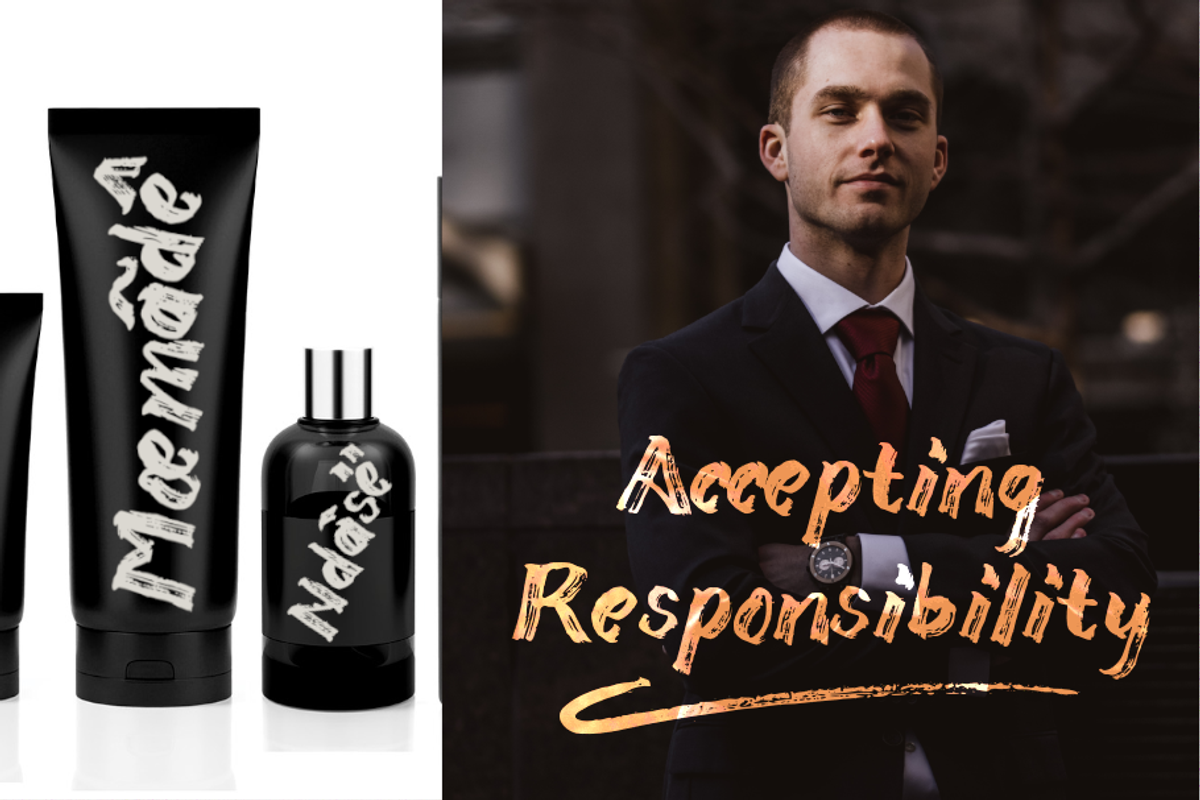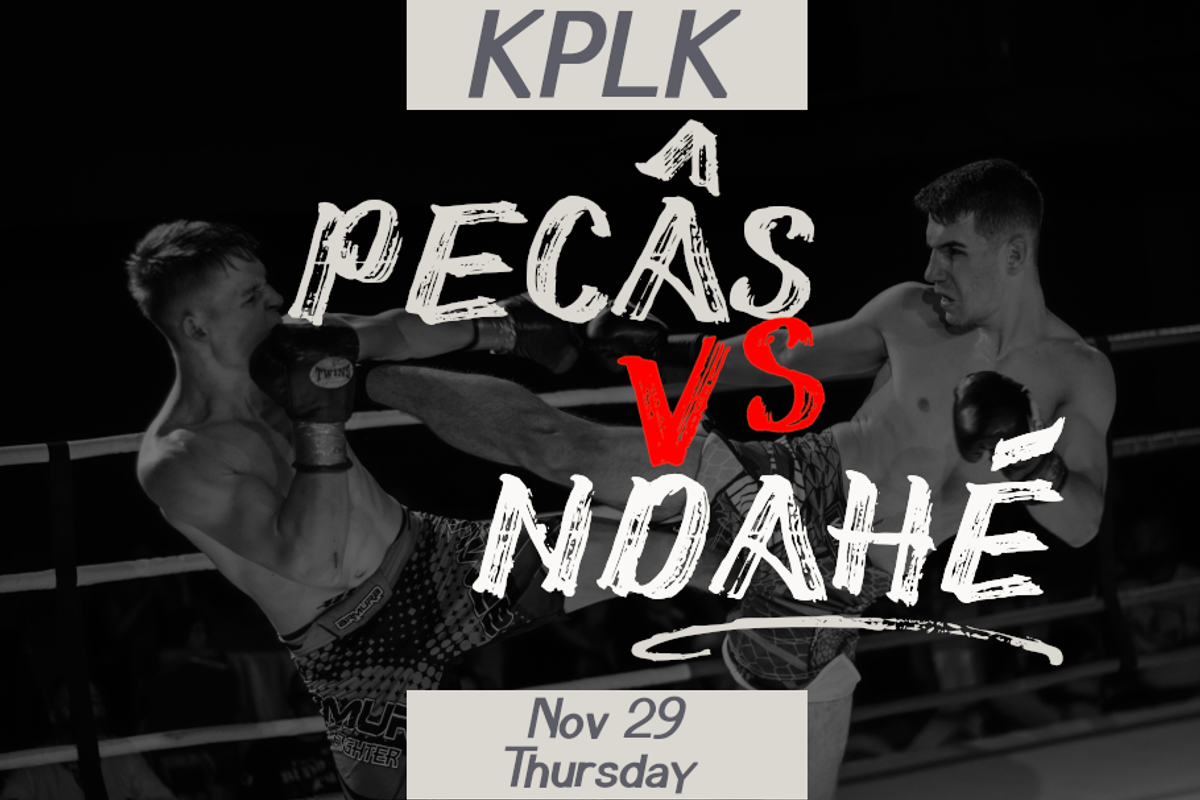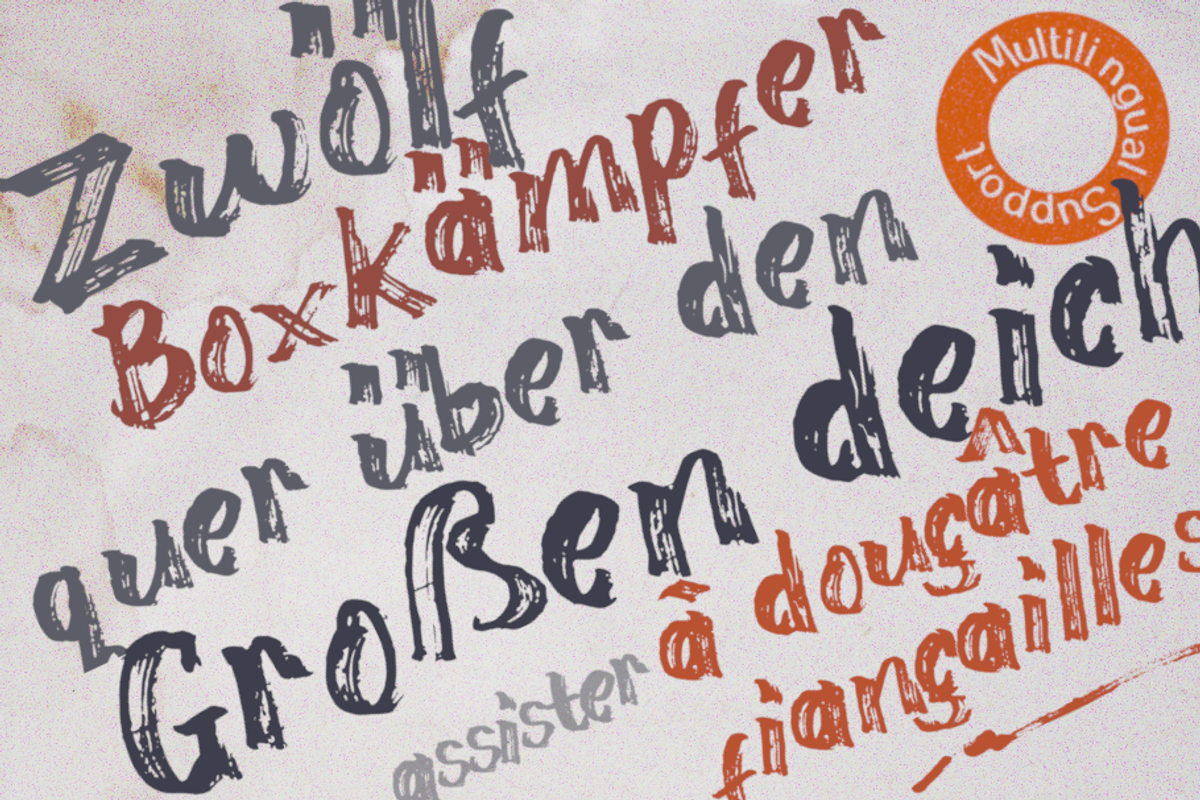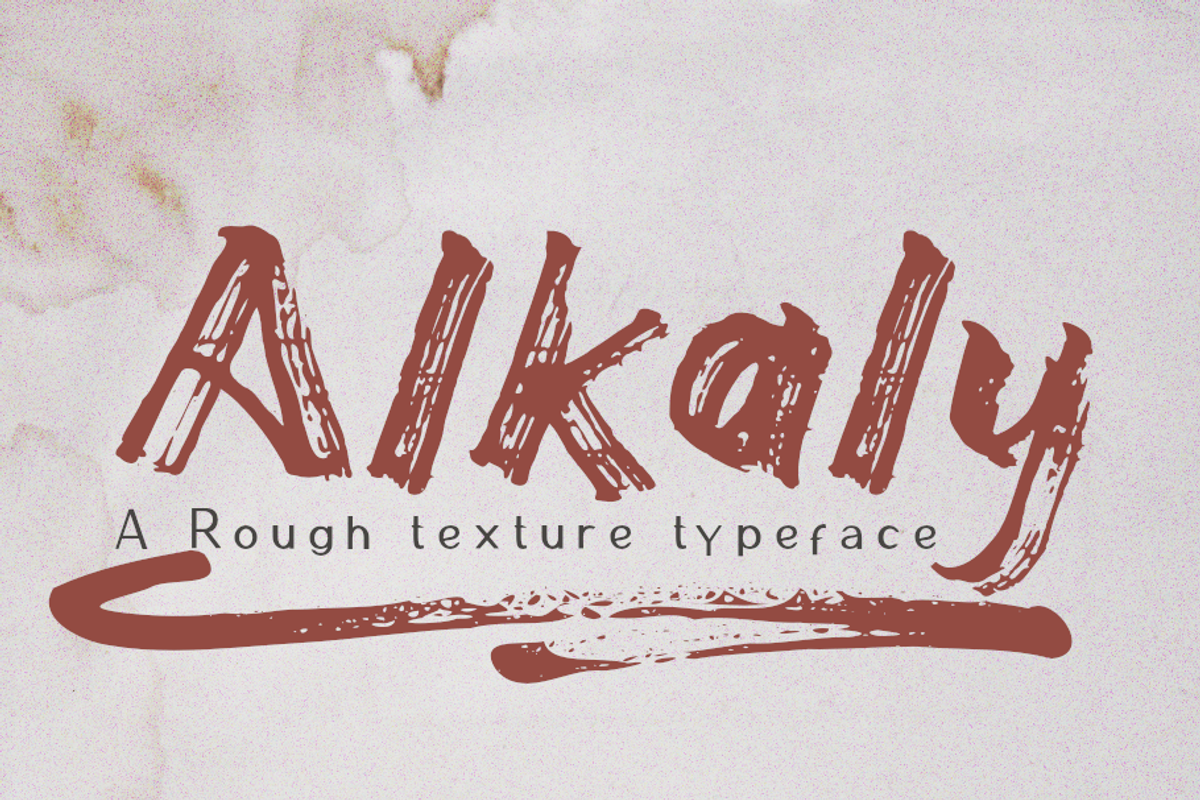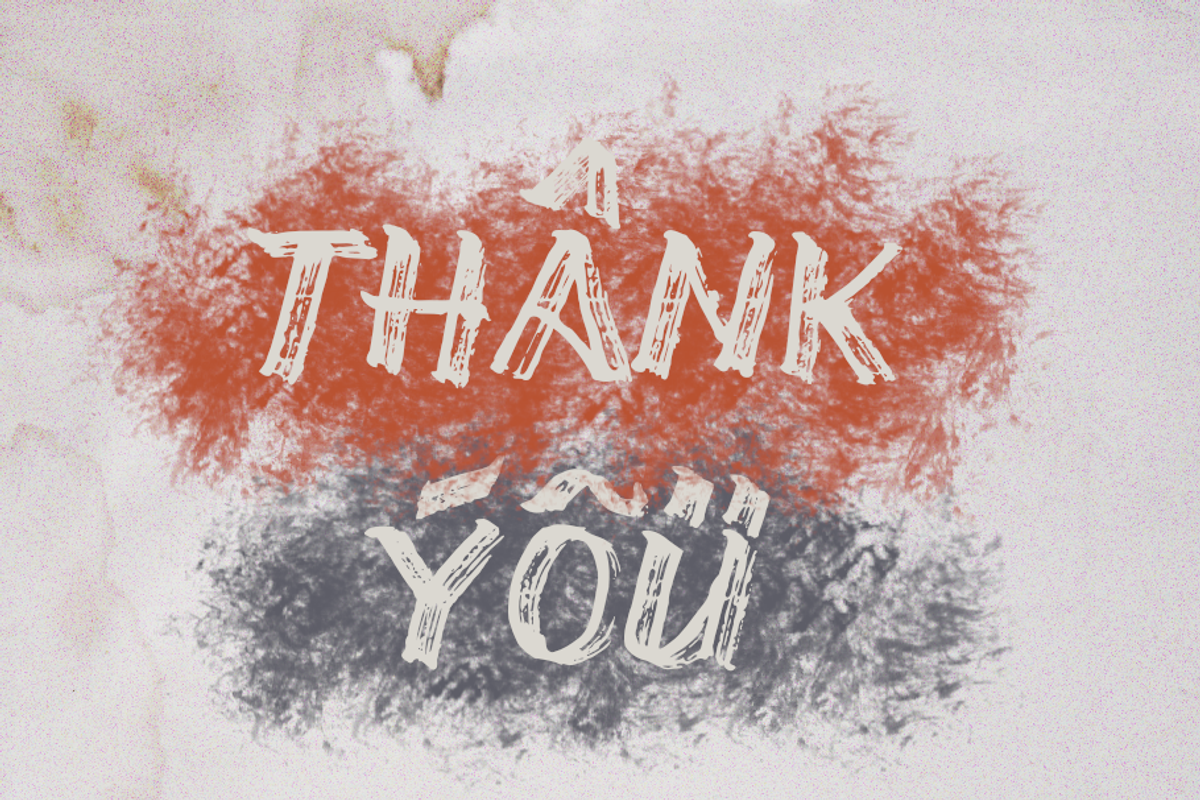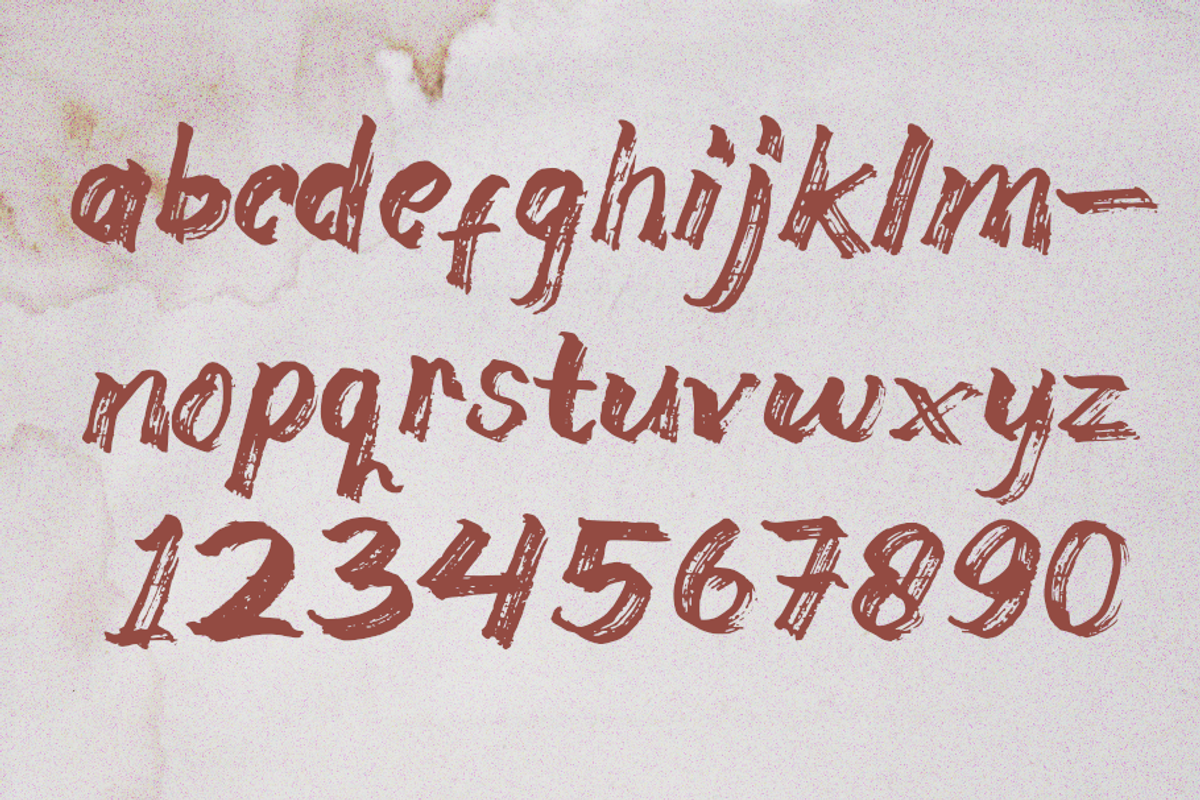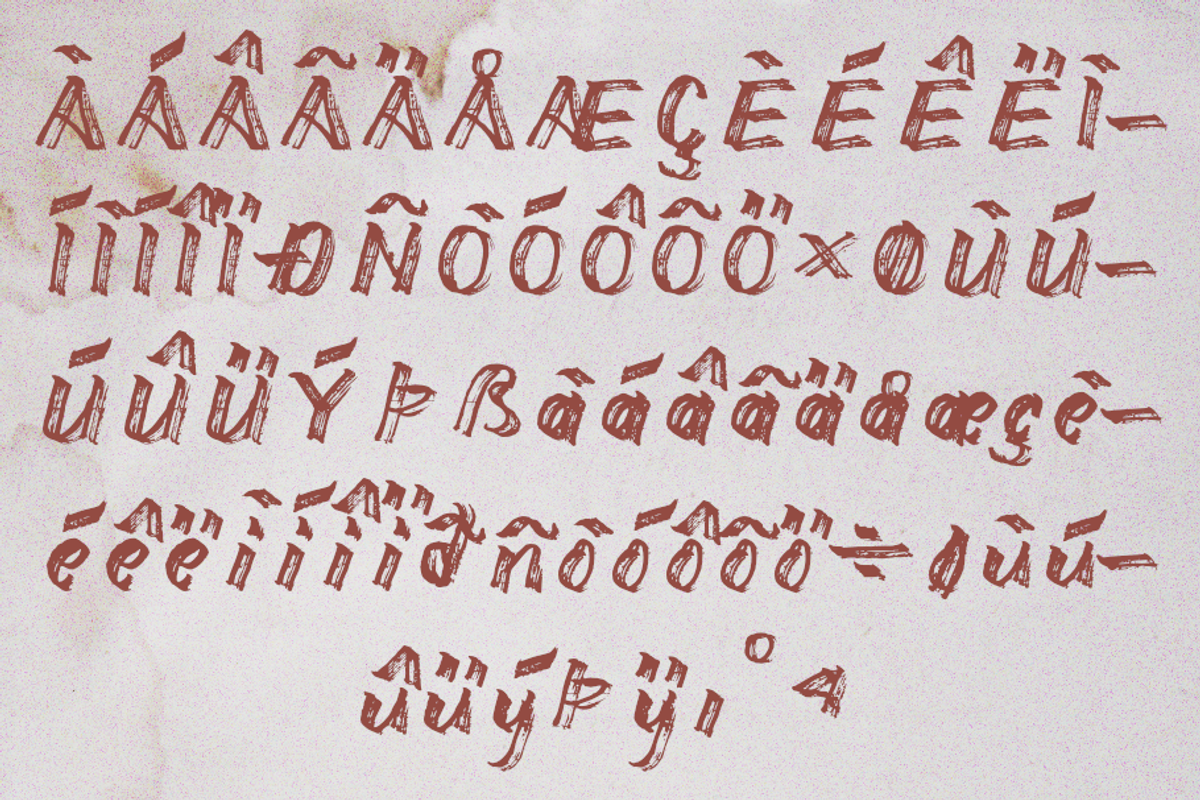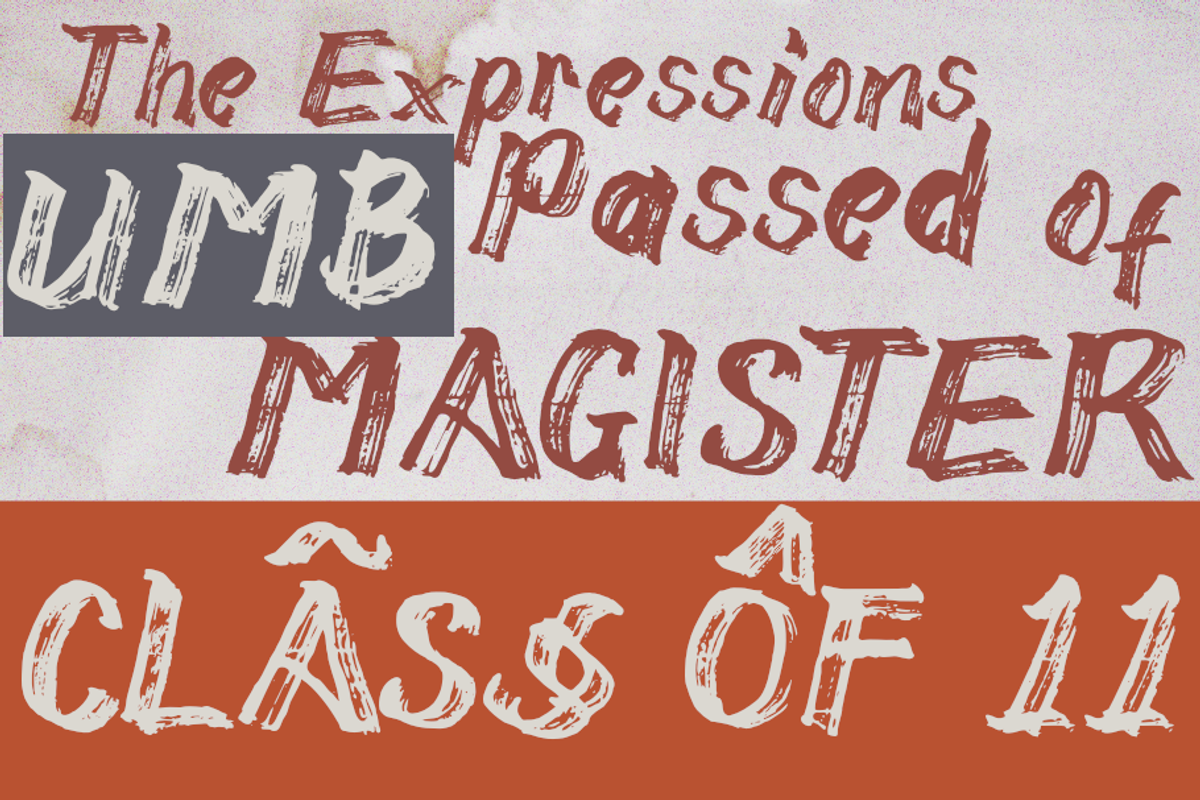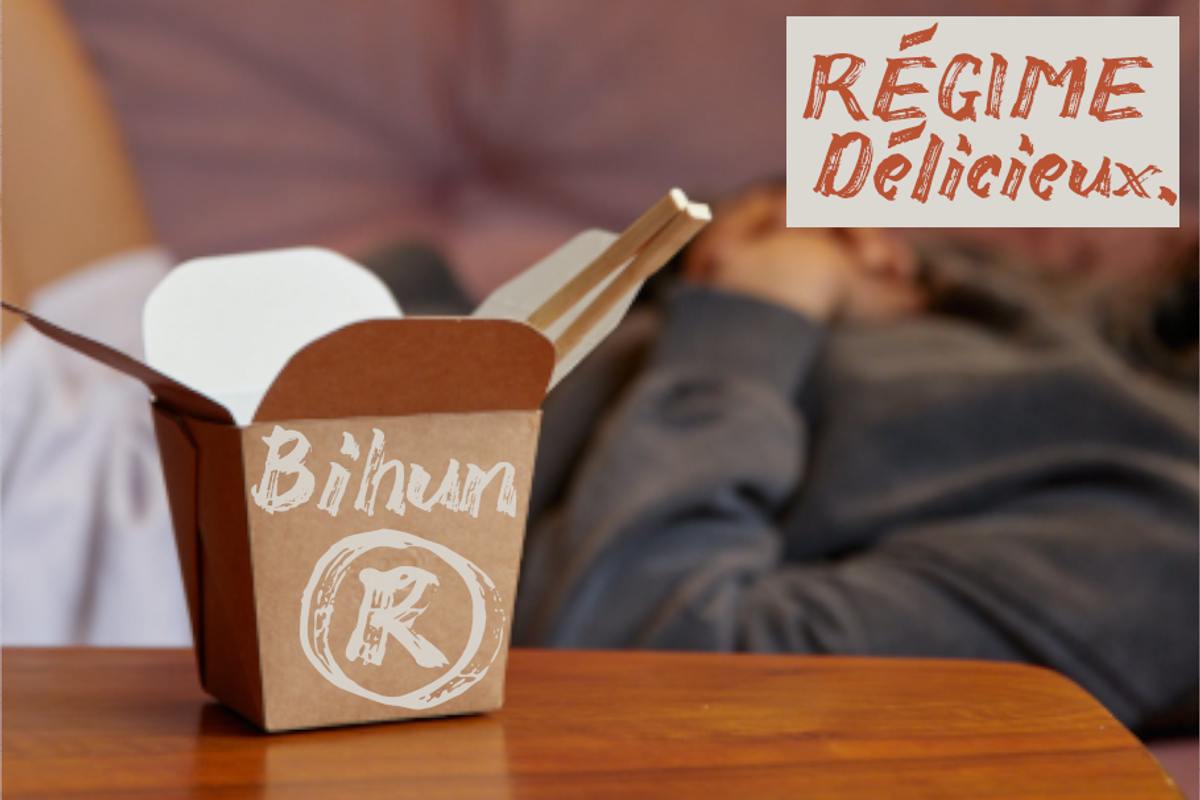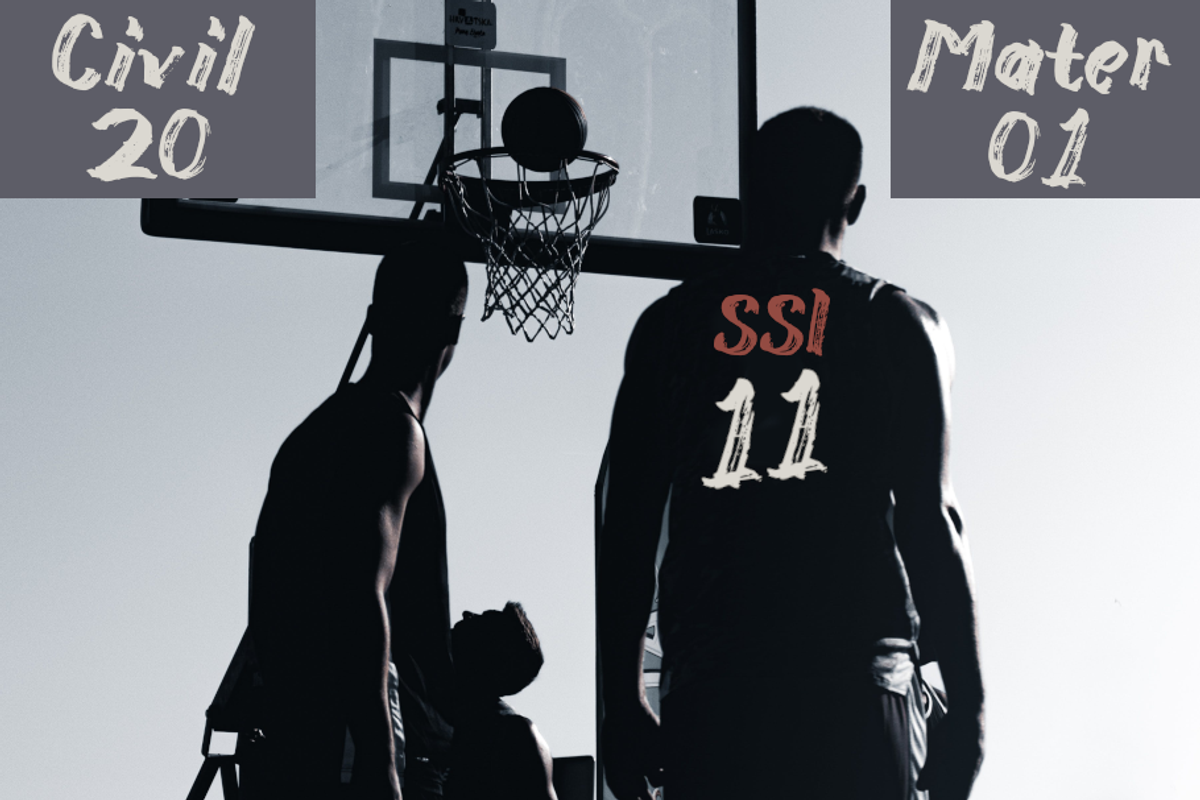
Alkaly Texture Typeface
Alkaly is a great handwritten font with a natural scratch texture. This font is the perfect fit for all of your logos, branding, social media, and many others